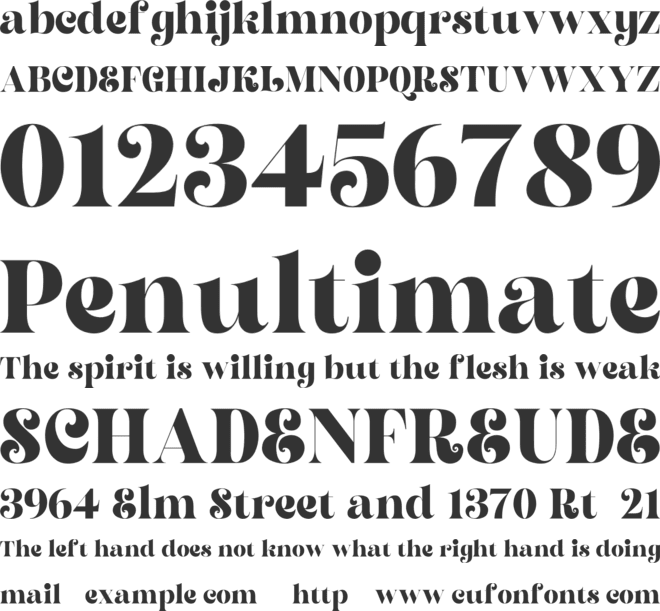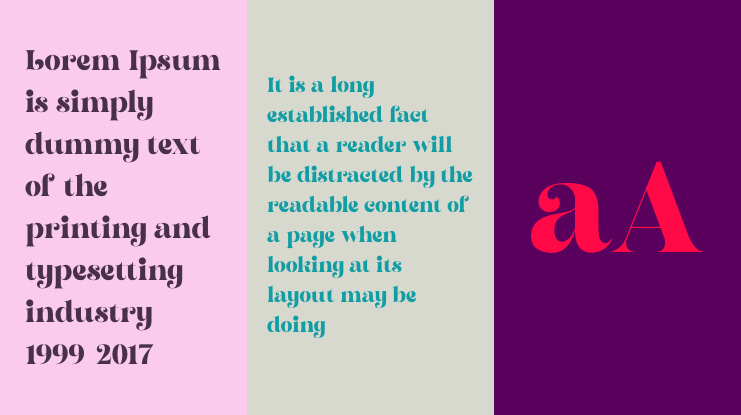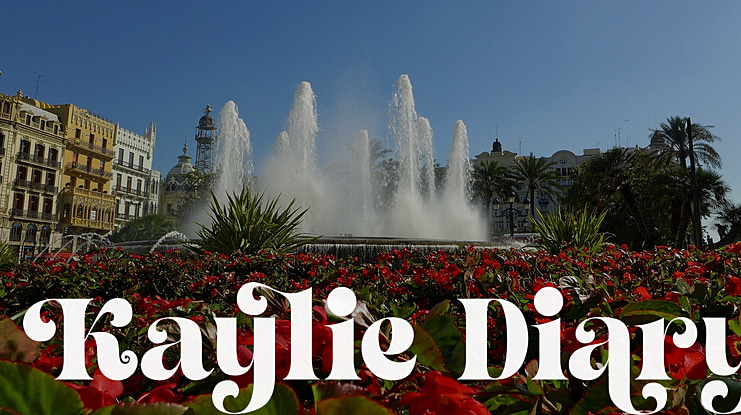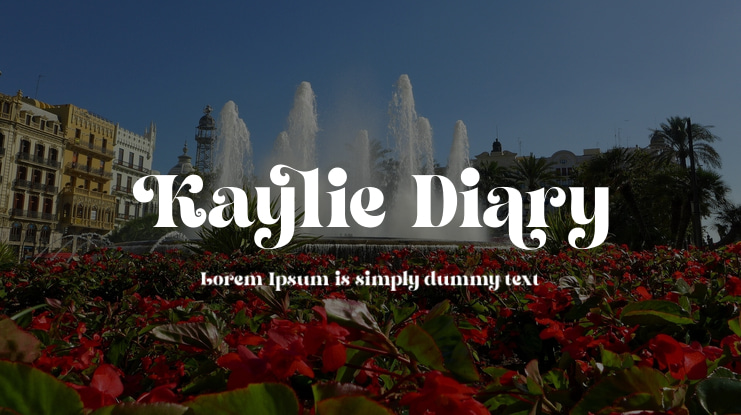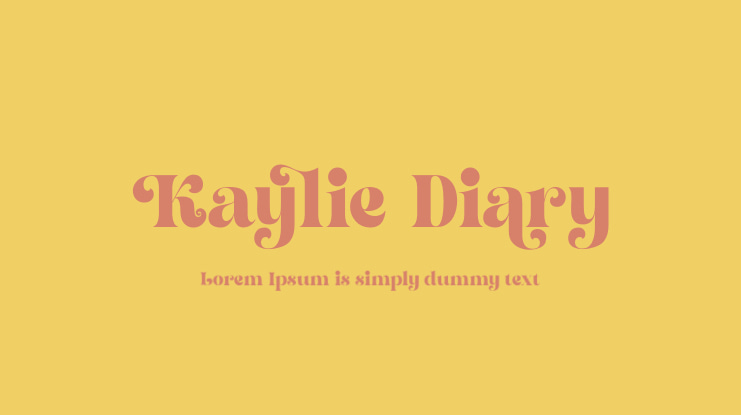
Kaylie Diary Font
Introducing, Kaylie Diary. It is the new serif typeface with classy, playful, cute and feminine look. It consisting of several kinds of alternative variations that can make your design more unique and trendy.
Kaylie Diary is perfect for an elegant & luxury logo, book or movie title design, fashion brand, magazine, clothes, lettering, quotes, poster designs, branding, magazines, merchandise, logos and so much more.